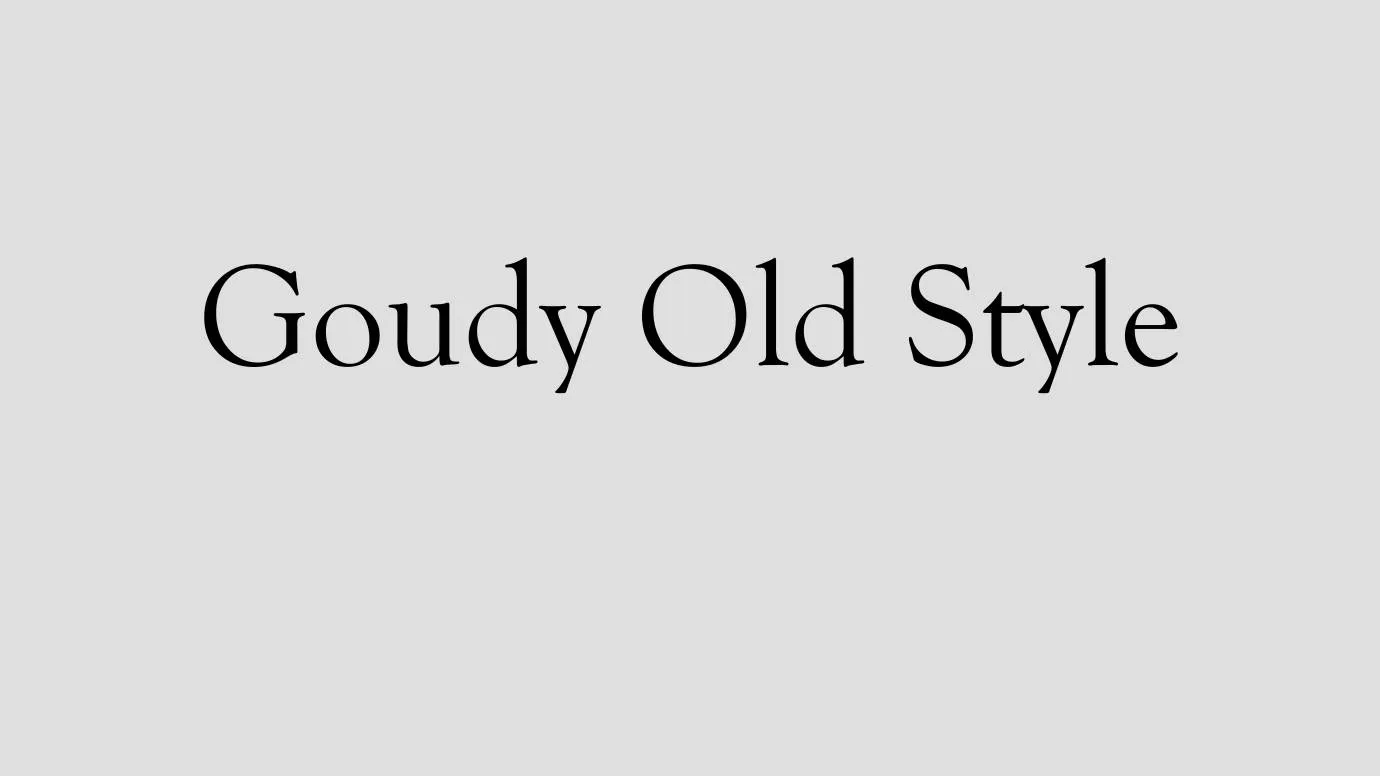
Goudy Old Style Font Family is a serif font utilized across various forms, requiring an old-style aesthetic. Created in the 19th century, this font was the work of a distinguished artist and designer.
| Name | Goudy Old Style Font |
| Type | Old-Style |
| Designer | Frederic Goudy |